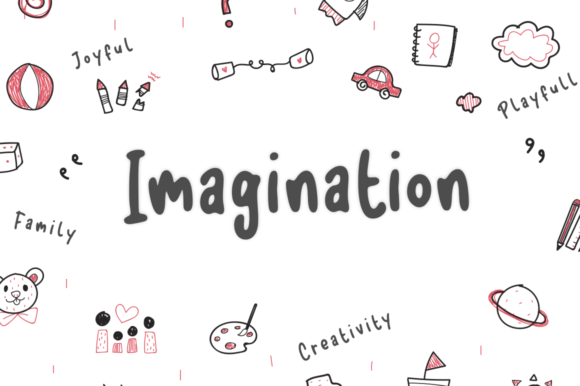
Koe Benson Font: A Simple and Quirky Display Font for Winter and Children’s Designs
The Koe Benson font is a delightful and charming display font that has gained popularity among designers and crafty enthusiasts alike. Its sweet and friendly style makes it an ideal choice for various design projects, particularly those related to Christmas, winter, children, and school themes. In this article, we will explore the features and benefits of the Koe Benson font, as well as provide tips and inspiration for using it in your designs.
What is Koe Benson Font?
Koe Benson is a simple and quirky display font that boasts a unique and endearing personality. Its design is characterized by rounded edges, gentle curves, and a playful feel that instantly captures the attention of viewers. The font’s sweet and friendly style makes it perfect for creating eye-catching and engaging designs that appeal to a wide range of audiences, from children to adults.
Key Features of Koe Benson Font
- Simple and Quirky Design: Koe Benson font features a simple yet quirky design that sets it apart from other display fonts.
- Sweet and Friendly Style: The font’s sweet and friendly style makes it perfect for creating designs that are approachable and engaging.
- Rounded Edges and Gentle Curves: The font’s rounded edges and gentle curves give it a soft and inviting feel.
- Playful Feel: Koe Benson font has a playful feel that makes it ideal for designs that require a touch of whimsy and fun.
Using Koe Benson Font for Christmas and Winter Designs
Koe Benson font is an excellent choice for Christmas and winter designs, thanks to its festive and cheerful feel. The font’s rounded edges and gentle curves evoke a sense of warmth and coziness, making it perfect for creating designs that capture the spirit of the holiday season. Here are some ideas for using Koe Benson font in your Christmas and winter designs:
Christmas and Winter Design Ideas
- Holiday Cards and Invitations: Use Koe Benson font to create festive holiday cards and invitations that set the tone for your Christmas celebrations.
- Winter Wonderland Posters: Create eye-catching posters that showcase the beauty of winter, using Koe Benson font to add a touch of magic and wonder.
- Snowflake Designs: Use Koe Benson font to create beautiful snowflake designs that can be used as decorations or gift tags.
- Christmas Party Decorations: Create festive decorations for your Christmas party, such as banners, garlands, and signs, using Koe Benson font.
Using Koe Benson Font for Children’s Designs
Koe Benson font is also an excellent choice for children’s designs, thanks to its playful and friendly feel. The font’s simple and quirky design makes it perfect for creating engaging and interactive designs that appeal to kids. Here are some ideas for using Koe Benson font in your children’s designs:
Children’s Design Ideas
- Children’s Book Titles: Use Koe Benson font to create eye-catching titles for children’s books that capture the imagination of young readers.
- Kids’ Party Invitations: Create fun and playful invitations for kids’ parties, using Koe Benson font to add a touch of excitement and adventure.
- Children’s Posters and Prints: Use Koe Benson font to create colorful posters and prints that feature fun and educational content for kids.
- School Projects: Koe Benson font is also perfect for school projects, such as presentations, reports, and posters, that require a touch of creativity and personality.
Tips for Using Koe Benson Font
Here are some tips for using Koe Benson font effectively in your designs:
Tips and Best Practices
- Use it for Headings and Titles: Koe Benson font is perfect for headings and titles, thanks to its bold and playful feel.
- Pair it with Other Fonts: Experiment with pairing Koe Benson font with other fonts to create visually appealing and engaging designs.
- Adjust Font Size and Color: Adjust the font size and color to suit your design needs and ensure that the text is readable.
- Use it for Digital and Print Designs: Koe Benson font can be used for both digital and print designs, making it a versatile and convenient choice.
Koe Benson font is a simple and quirky display font that is perfect for creating engaging and eye-catching designs for Christmas, winter, children, and school projects. Its sweet and friendly style makes it an excellent choice for designers and crafty enthusiasts who want to add a touch of whimsy and fun to their designs. With its versatility and playfulness, Koe Benson font is sure to become a favorite among designers and crafty enthusiasts alike.